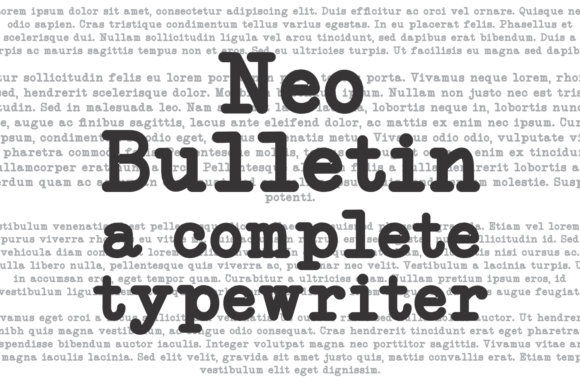
Introduction to Neo Bulletin Family Font
Neo Bulletin is a typewriter font design.
Neo Bulletin is great for mimicking the effect of old type writing machines Neo Bulletin is a beautiful family of 12 variations.
Key Features of Neo Bulletin Family Font
Why Choose Neo Bulletin Family Font?